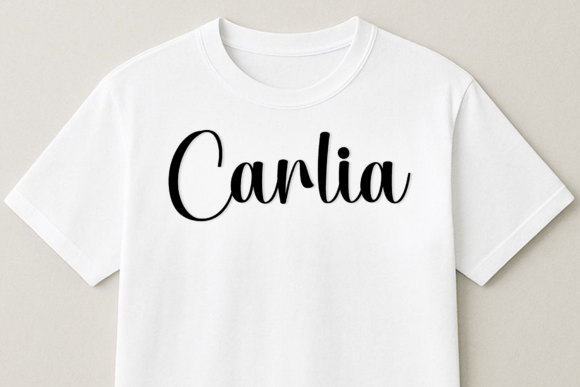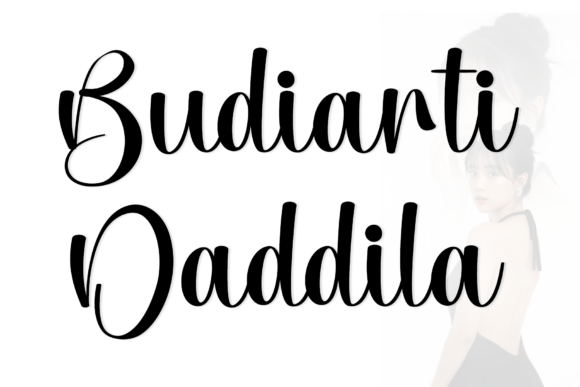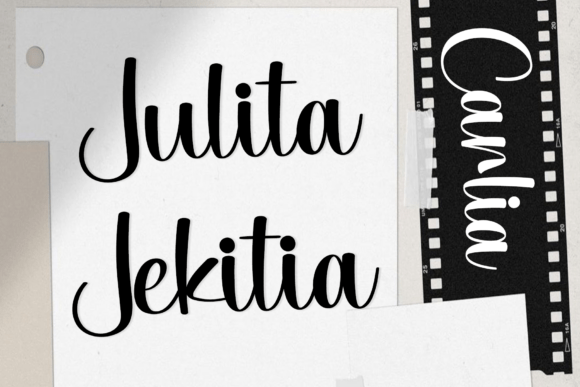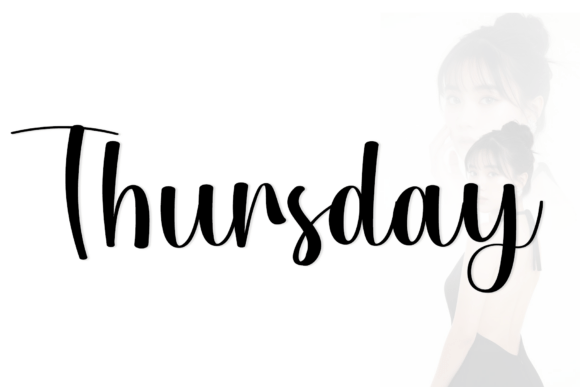
Introducing Billgaits Catalogue Font: Elevate Your Brand with Sophistication and Rhythm
In the world of typography, few fonts manage to strike a balance between elegance and warmth. Billgaits Catalogue Font is one such exceptional typeface that seamlessly blends a calligraphic style with a warm, organic aesthetic. This sophisticated and rhythmic script font is designed to bring a touch of artisanal charm to various design projects, making it a premier choice for creative professionals and crafters alike.
The Distinctive Characteristics of Billgaits Catalogue Font
The defining characteristic of Billgaits Catalogue Font is its use of sweeping, looping ascenders that create a sense of customized, artisanal artistry. These fluid strokes evoke a feeling of handcrafted quality, making it an ideal choice for brands looking to convey a sense of uniqueness and exclusivity. The font’s calligraphic style is balanced by its warm and organic aesthetic, resulting in a typeface that feels both sophisticated and approachable.
Ideal Applications for Billgaits Catalogue Font
Billgaits Catalogue Font is a versatile typeface that can be used in a variety of design applications. Some of the ideal uses for this font include:
- Artisanal Food Branding: The font’s warm and organic aesthetic makes it a perfect fit for artisanal food brands looking to convey a sense of handcrafted quality.
- Boutique Product Packaging: The font’s sophisticated and rhythmic style makes it an excellent choice for boutique product packaging, adding a touch of elegance and refinement to any product.
- Upscale Lifestyle Marketing: Billgaits Catalogue Font is well-suited for upscale lifestyle marketing campaigns, providing a sense of luxury and exclusivity that resonates with high-end audiences.
- Creative Editorial Titles: The font’s unique and artistic style makes it an excellent choice for creative editorial titles, adding a touch of personality and flair to any publication.
Why Choose Billgaits Catalogue Font?
There are several reasons why Billgaits Catalogue Font stands out from other typefaces:
- Unique and Artistic Style: The font’s sweeping, looping ascenders create a sense of customized, artisanal artistry that sets it apart from more traditional typefaces.
- Versatility: Billgaits Catalogue Font can be used in a variety of design applications, from artisanal food branding to creative editorial titles.
- Elegance and Warmth: The font’s sophisticated and rhythmic style is balanced by its warm and organic aesthetic, making it an excellent choice for brands looking to convey a sense of elegance and approachability.
Tips for Using Billgaits Catalogue Font Effectively
To get the most out of Billgaits Catalogue Font, consider the following tips:
- Use it Sparingly: Due to its unique and artistic style, it’s best to use Billgaits Catalogue Font sparingly to avoid overwhelming the design.
- Pair it with Neutral Fonts: Pairing Billgaits Catalogue Font with neutral fonts can help to create a balanced and harmonious design.
- Experiment with Colors: The font’s warm and organic aesthetic lends itself well to a variety of color schemes, so don’t be afraid to experiment and find the perfect combination for your design.
Billgaits Catalogue Font is a sophisticated and rhythmic script font that offers a unique blend of elegance and warmth. Its sweeping, looping ascenders create a sense of customized, artisanal artistry, making it a premier choice for artisanal food branding, boutique product packaging, upscale lifestyle marketing, and creative editorial titles. With its versatility, unique style, and elegant aesthetic, Billgaits Catalogue Font is an excellent addition to any designer’s toolkit.